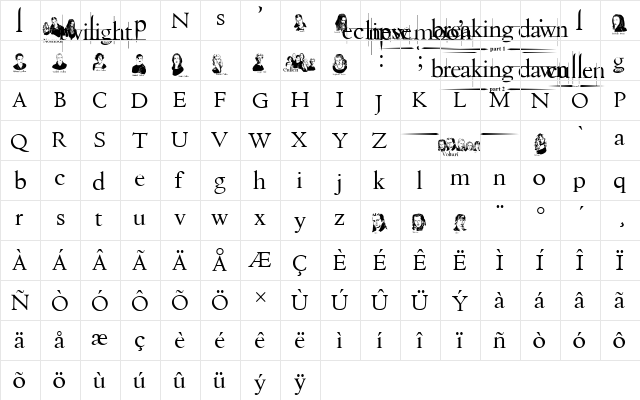
Cullen Regular
Design Context for Cullen Typeface
Cullen is a composed and adaptable typeface that performs quietly and consistently across a wide range of design contexts.